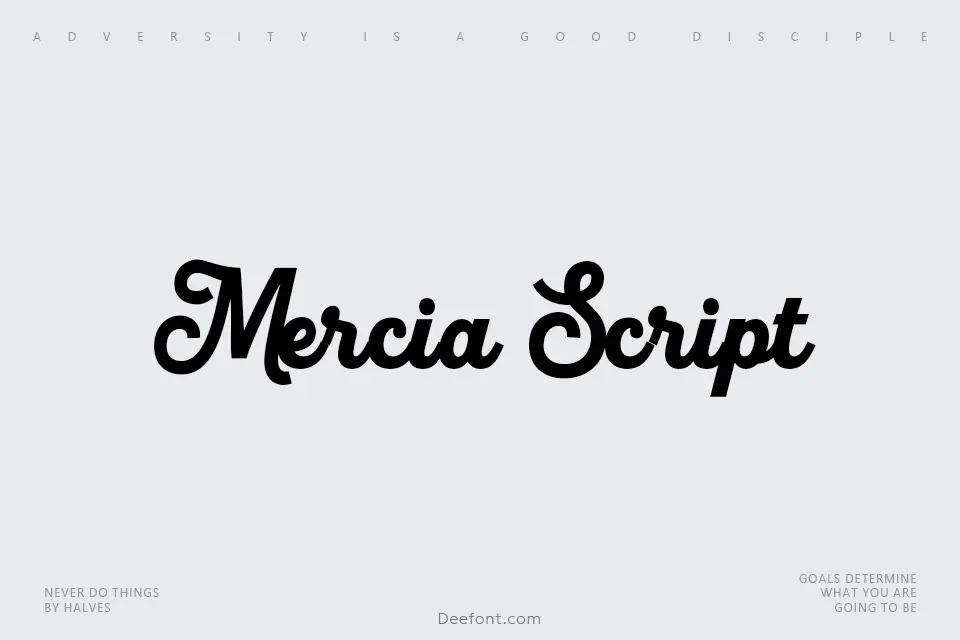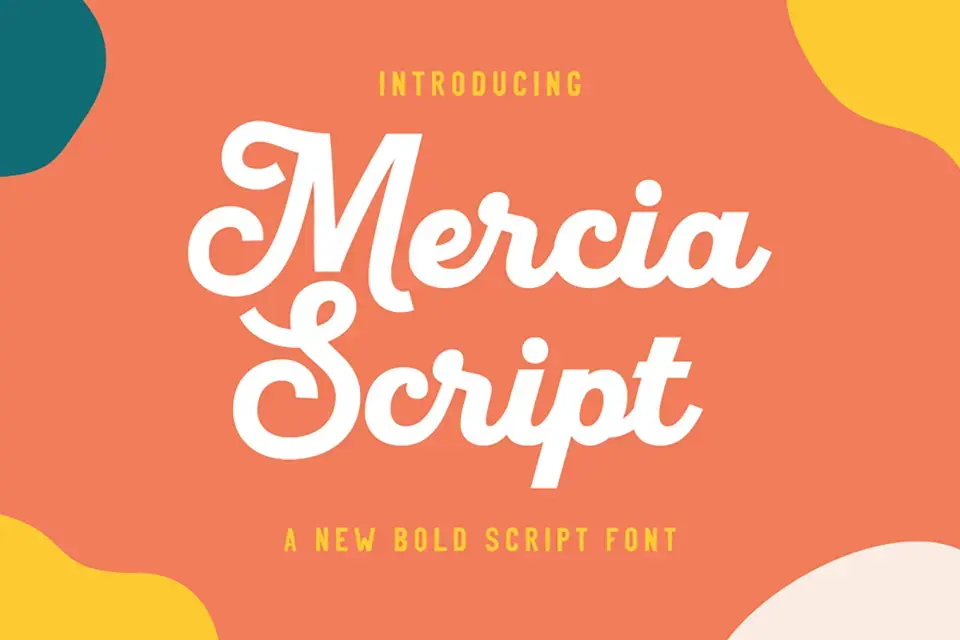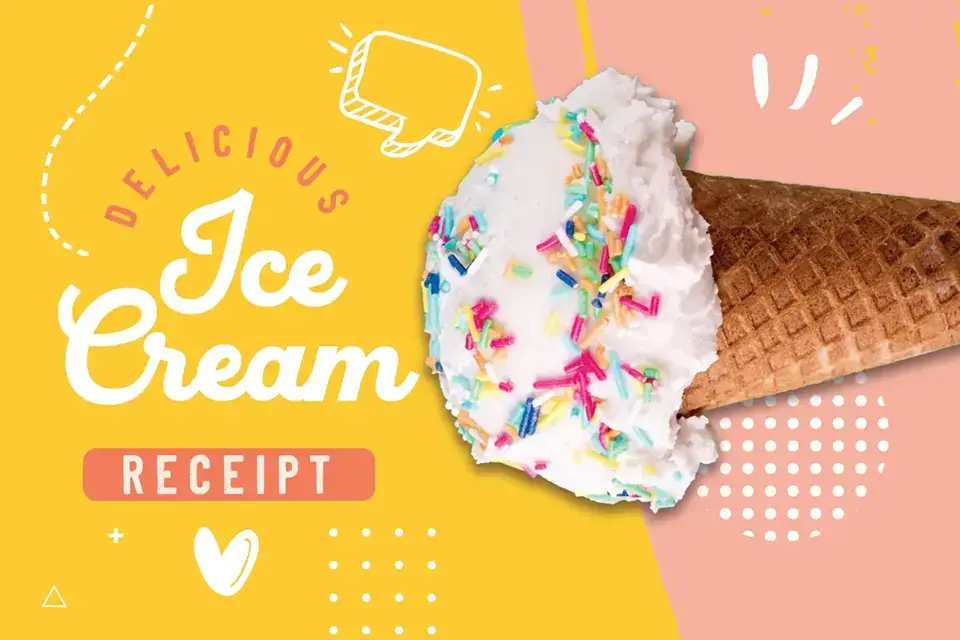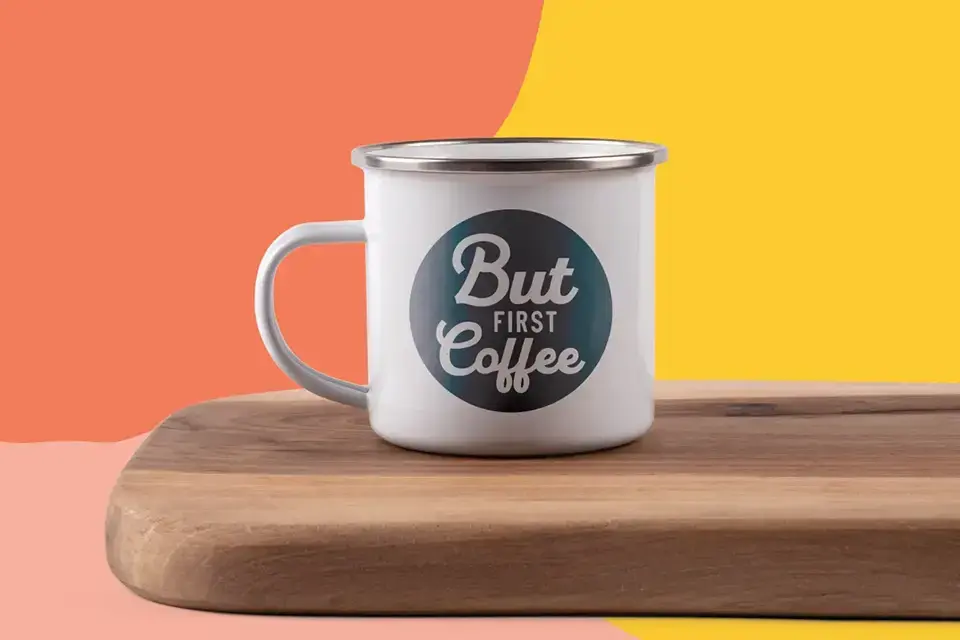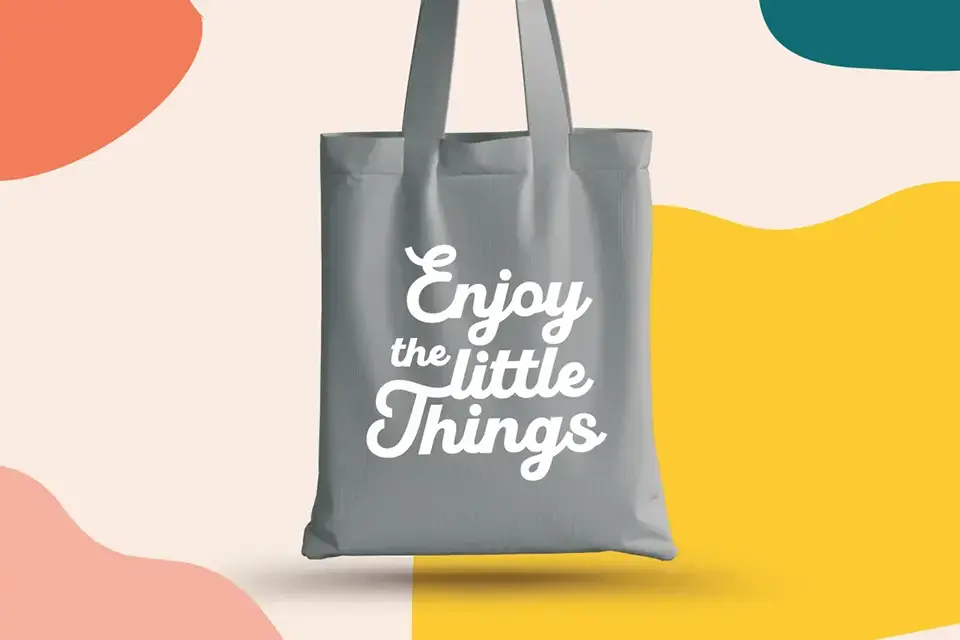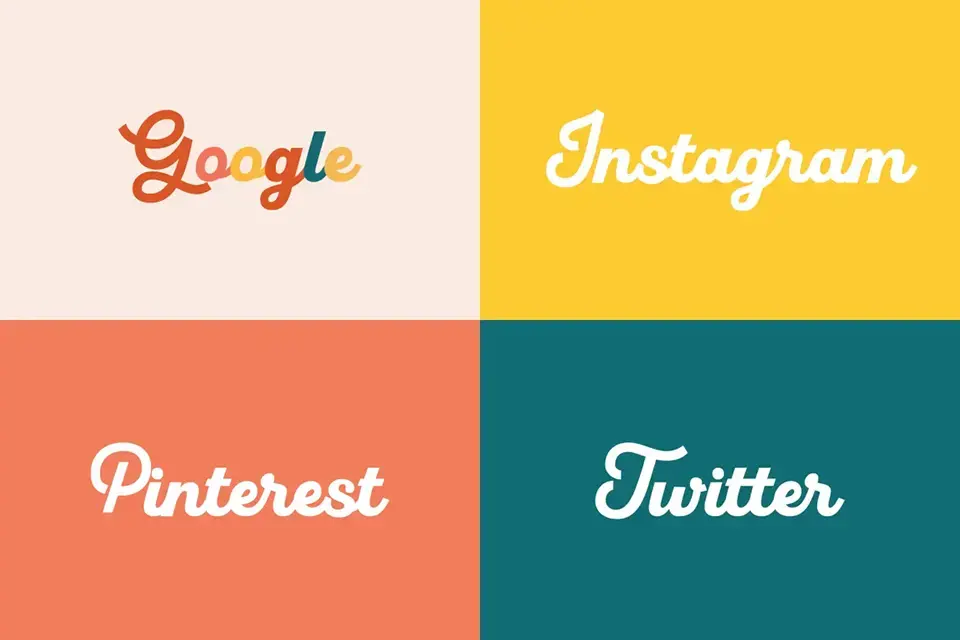
Mercia Script Font
Mercia Script Font is a bold retro script typeface with flowing, connected strokes, generous ligatures and decorative swashes that evoke classic sign painting. Its smooth curves, semi-bold weight and old-school energy make it ideal for standout logos, wedding stationery, badges, packaging, posters and social media headlines.